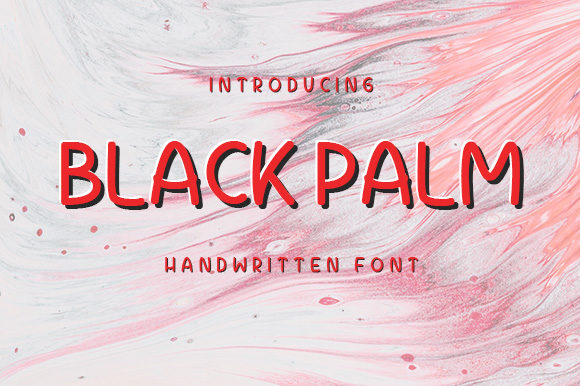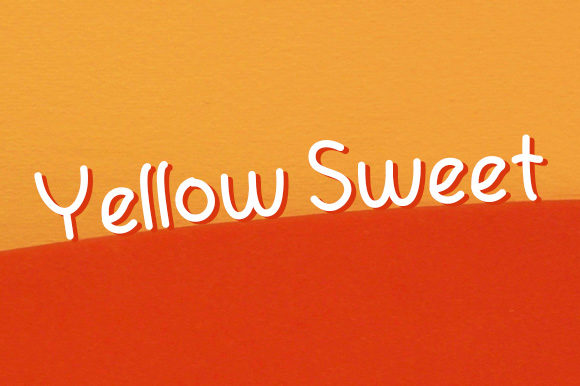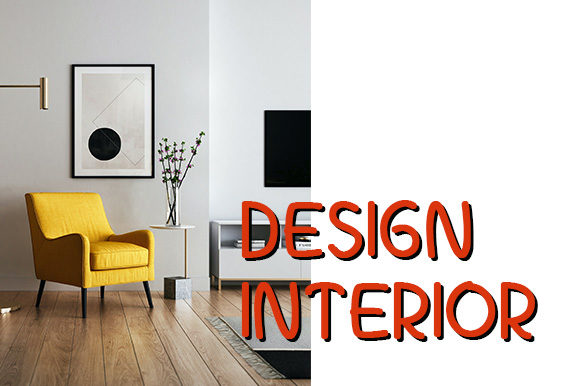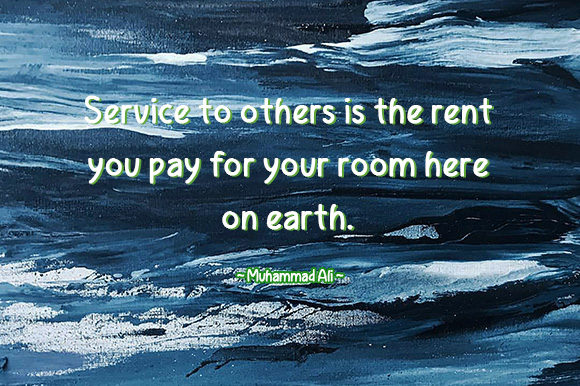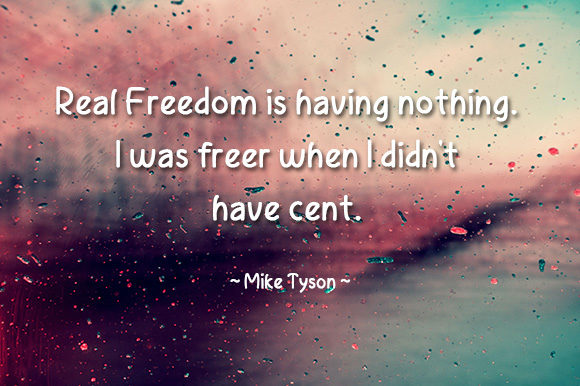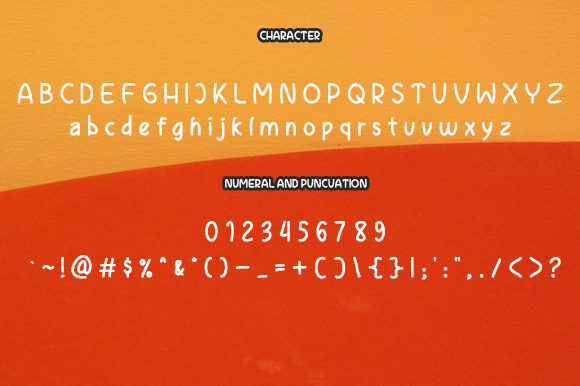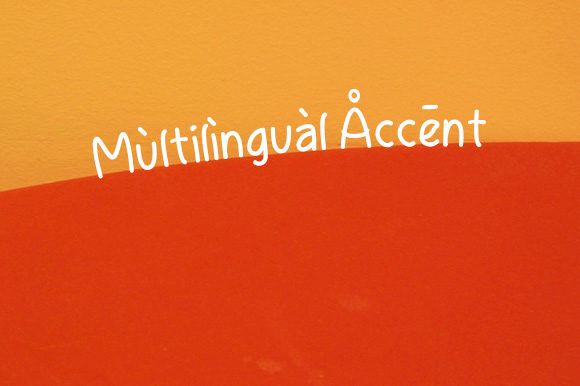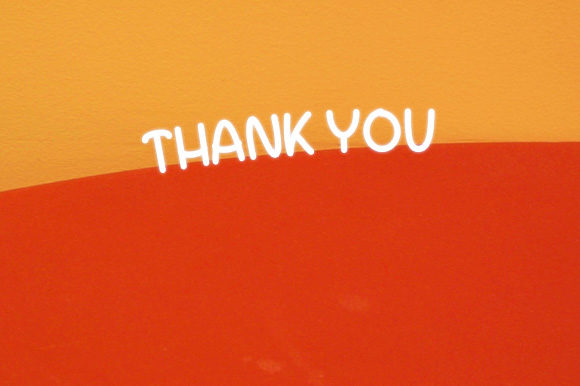
Black Palm Font
About Black Palm Font
Black Palm is a simple, cute and childish handwritten font. This original look will appeal to a wide range of crafty ideas, from letterheads and titles, to stationery.